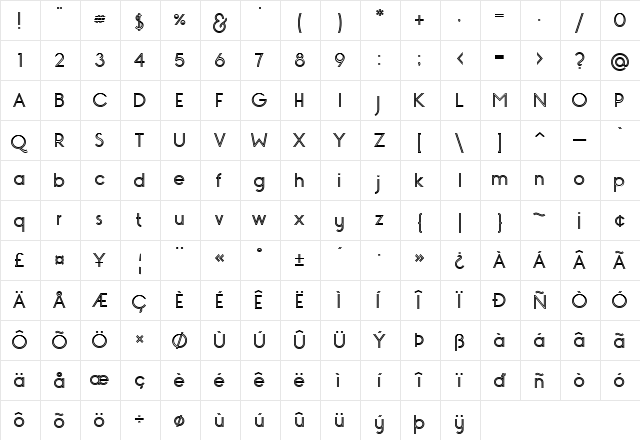
Monopoly Inline
| Style | Inline |
| Foundry | NimaVisual |
| Designer | NimaVisual |
Design Context for Monopoly Typeface
Monopoly is built around its visual character rather than neutral utility — its distinctive forms are designed to make an impression at display sizes.
Font Pairing: Pair with a clean neutral sans-serif for body copy to let Monopoly's character lead without overwhelming the composition.
Pro Tip: Treat Monopoly as the centrepiece of your typographic hierarchy. One strong heading set in a decorative face can carry an entire layout.